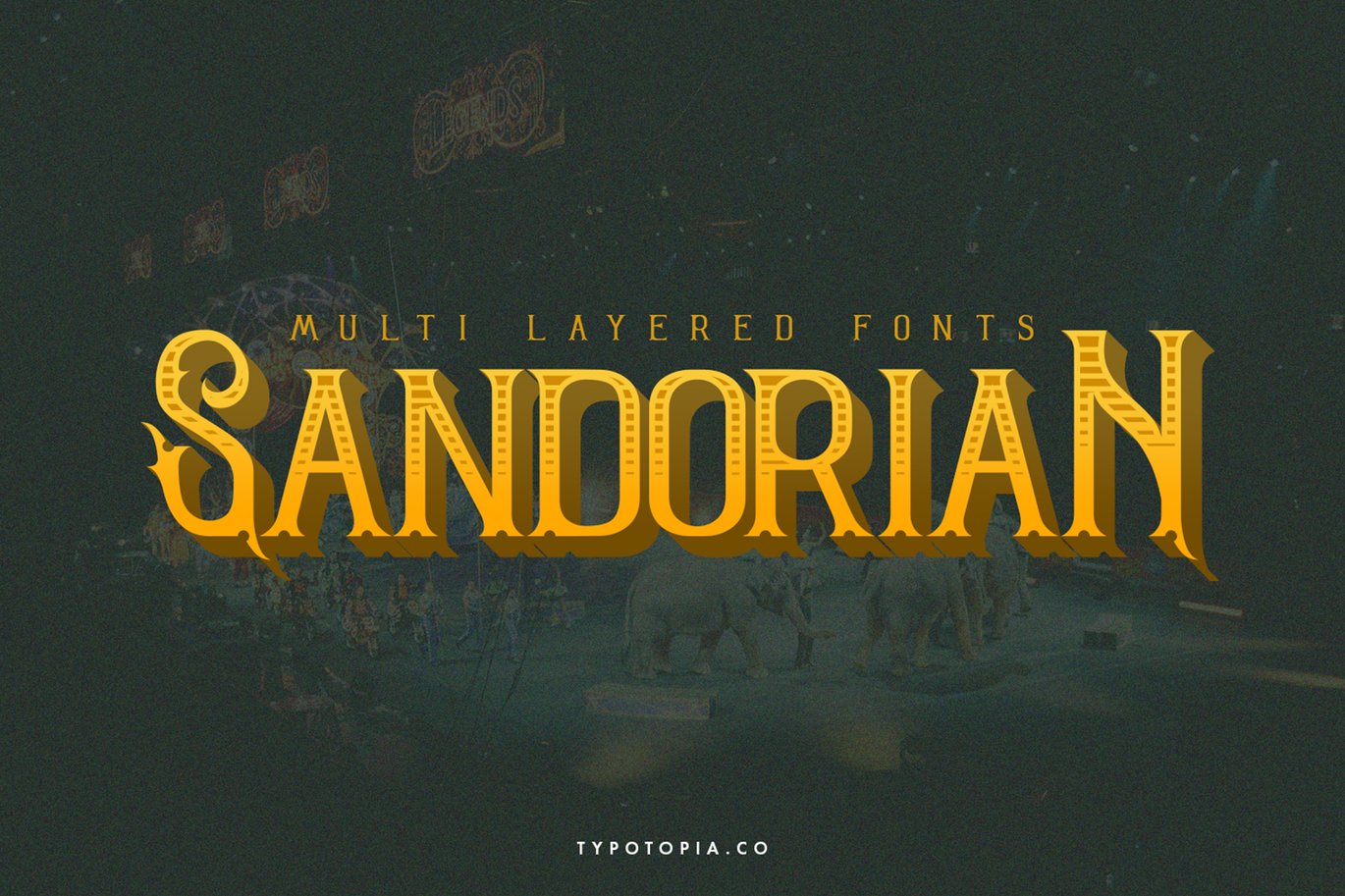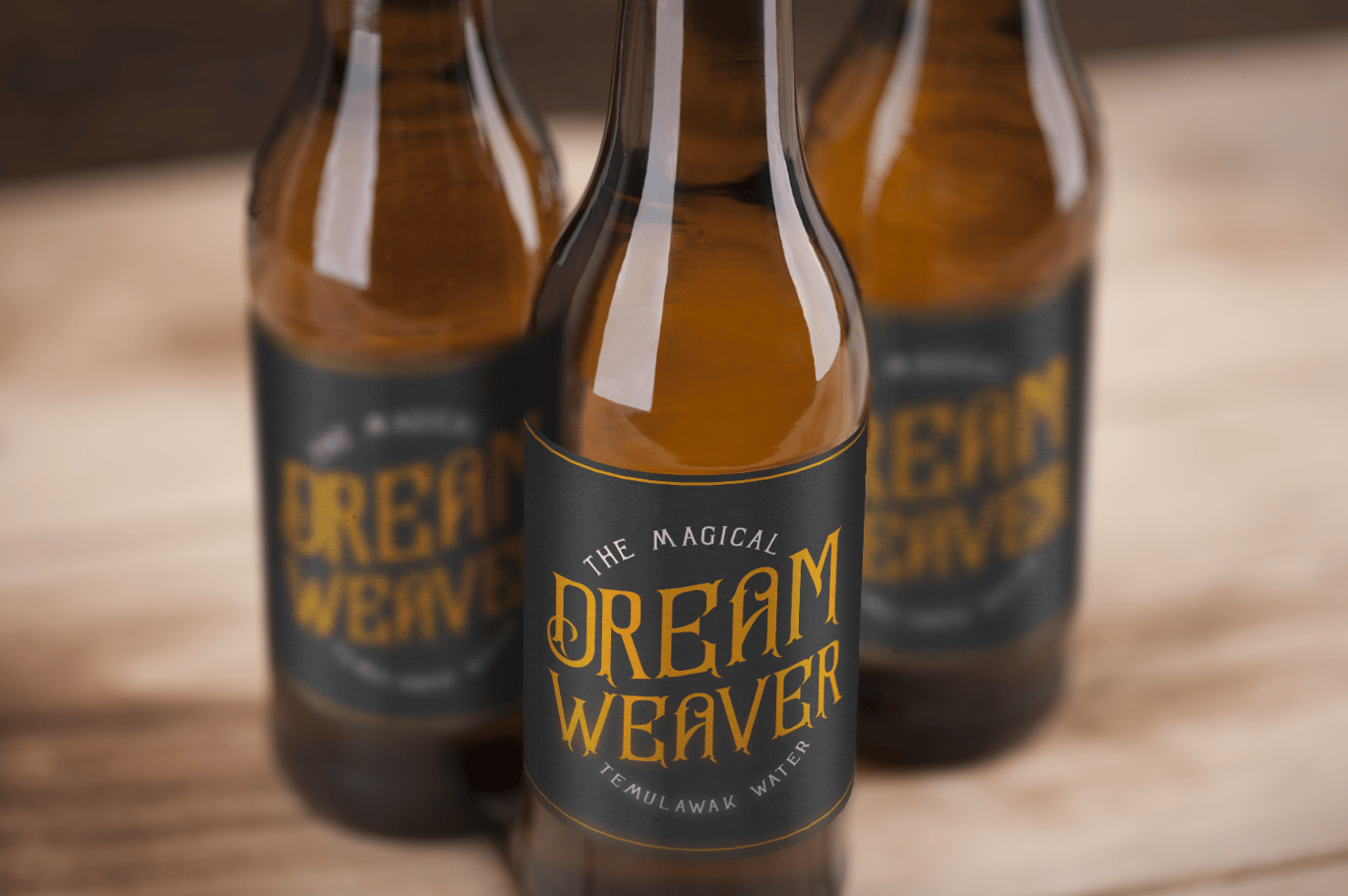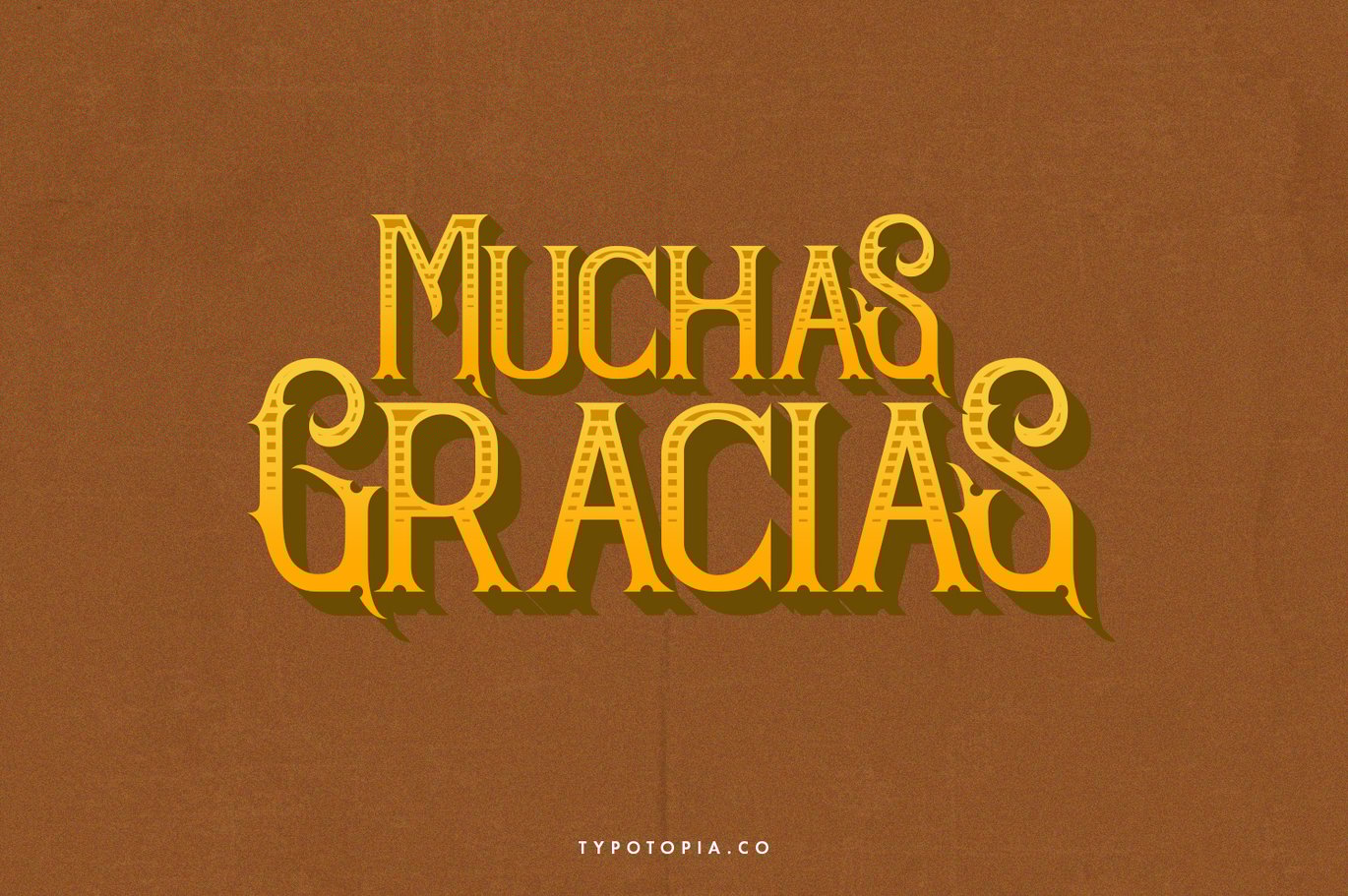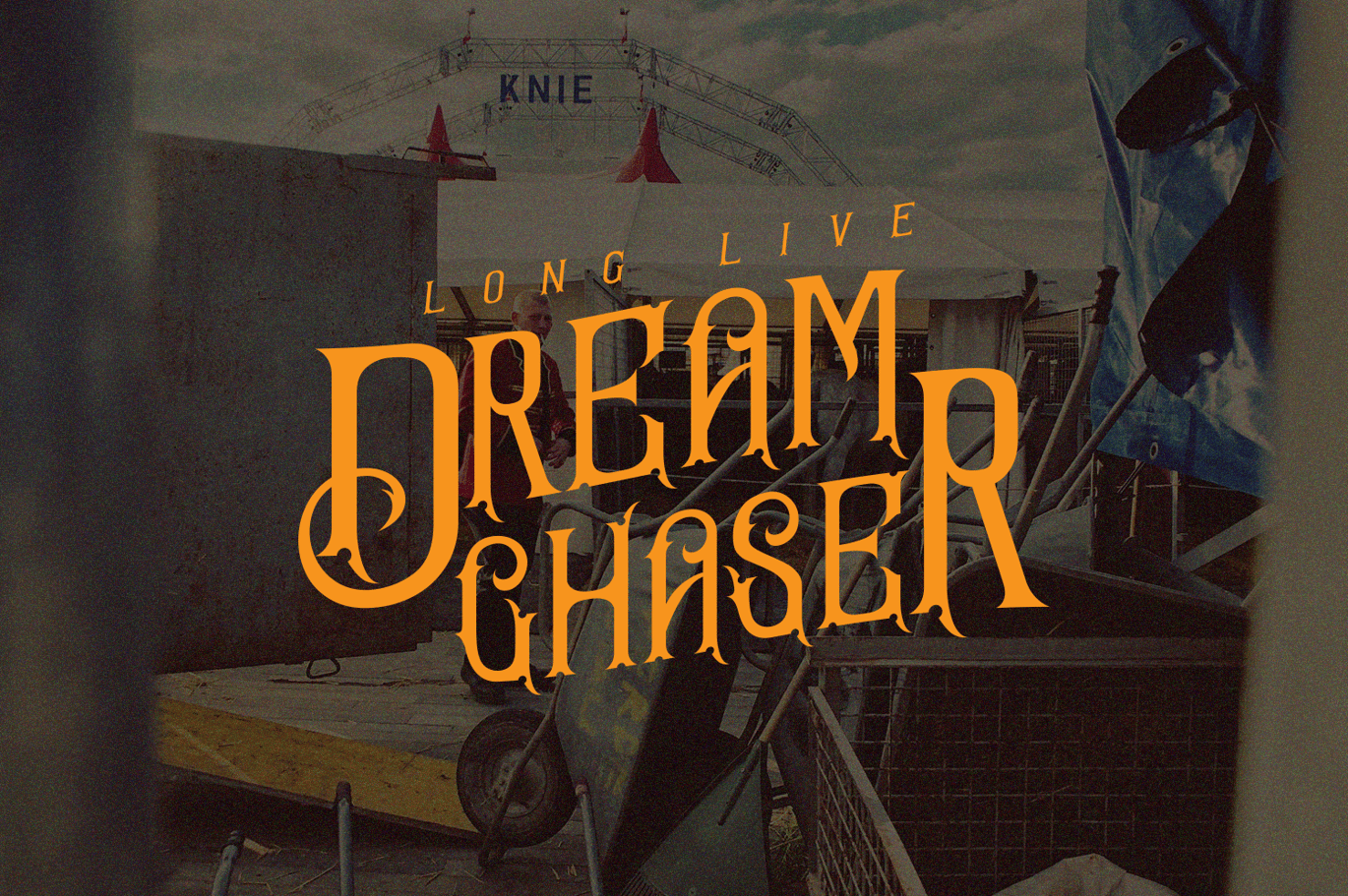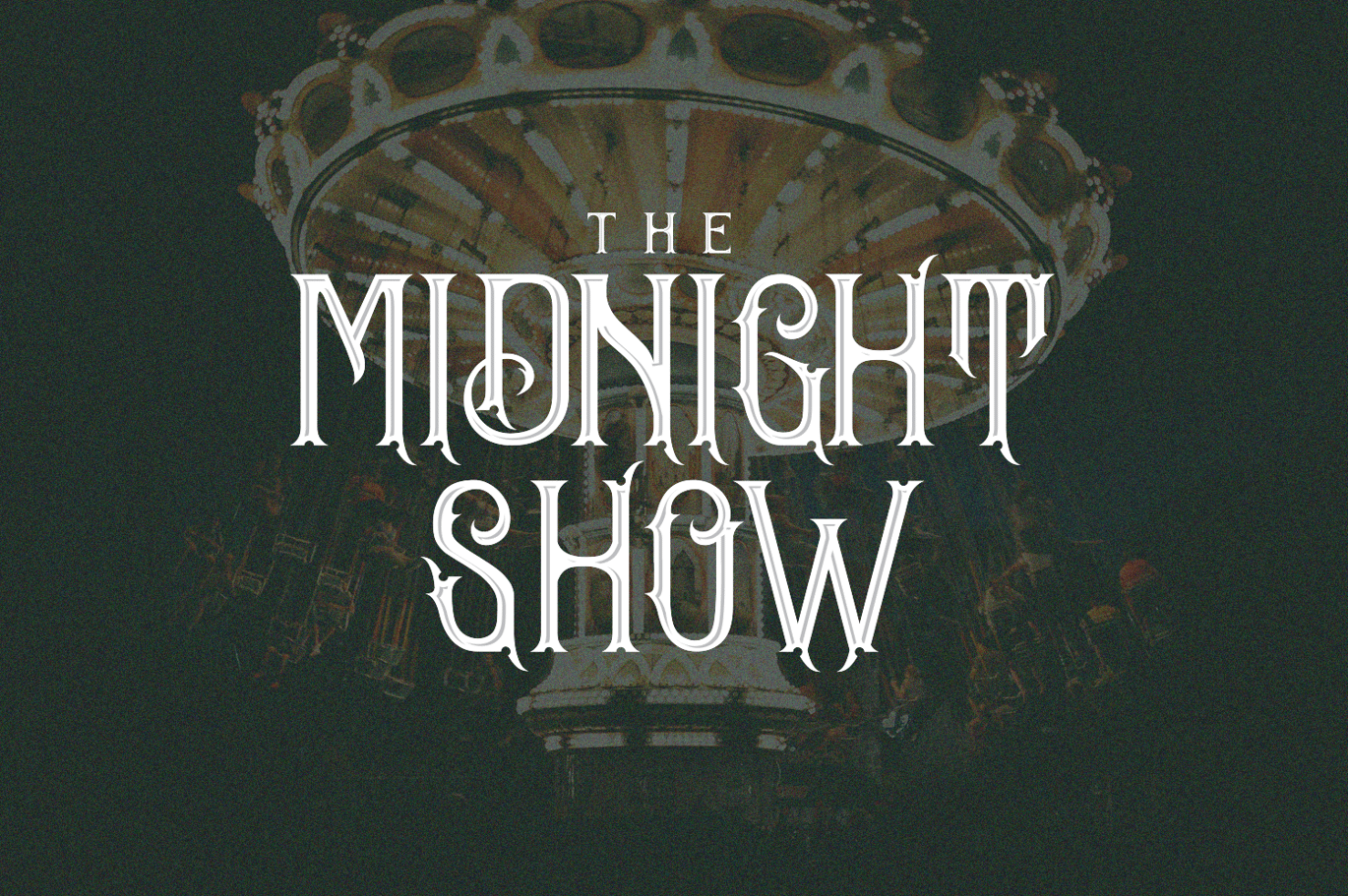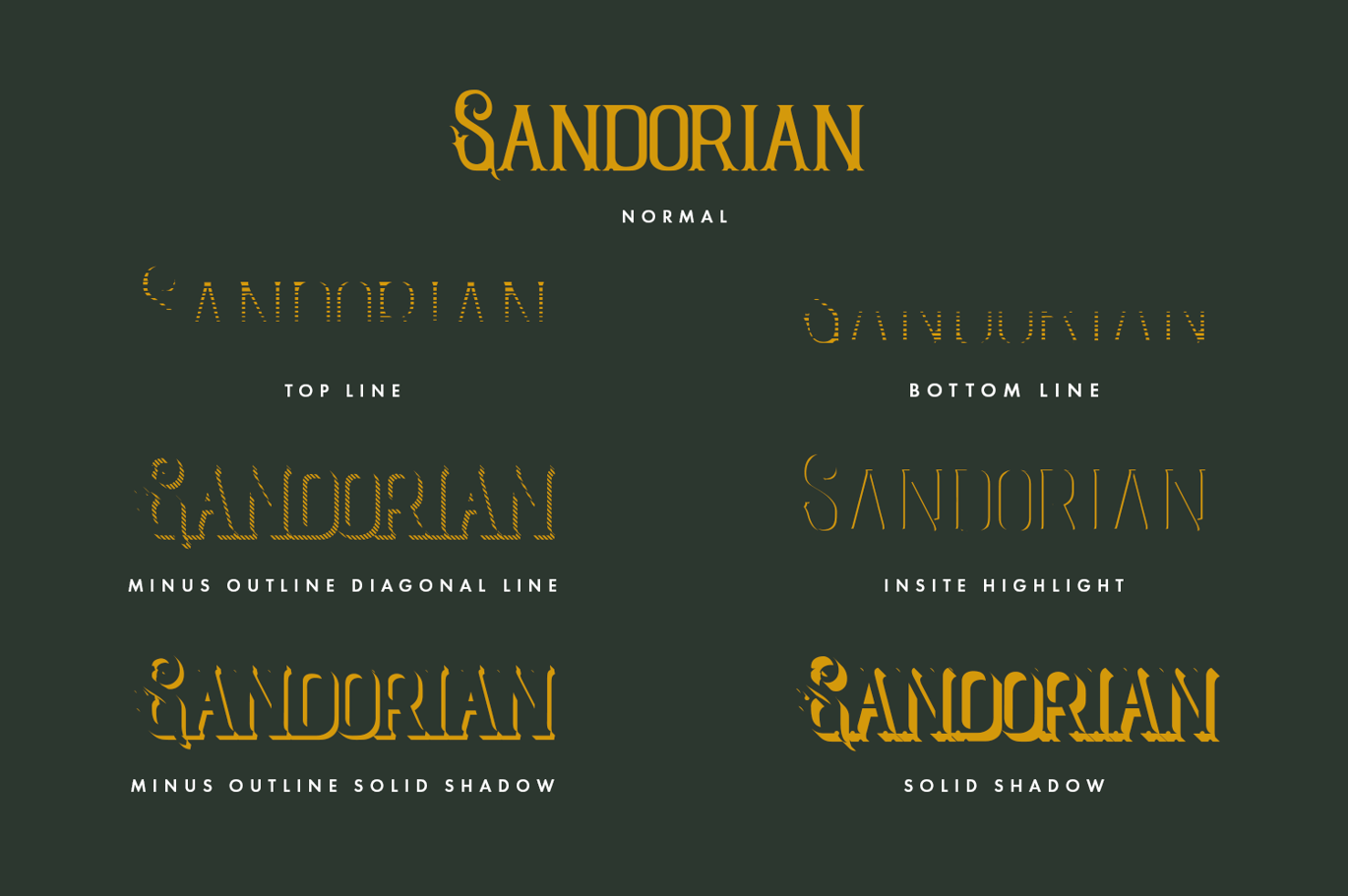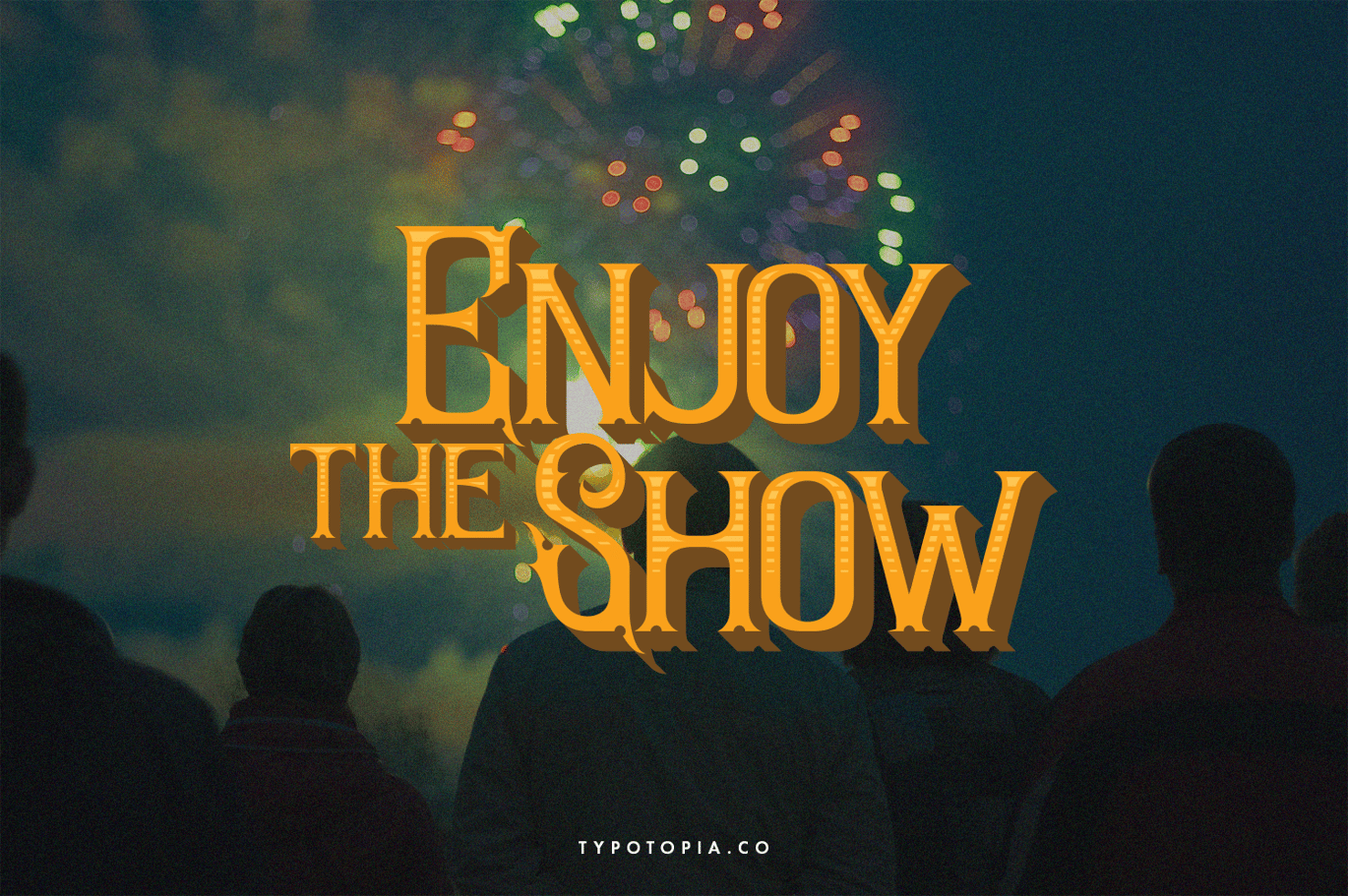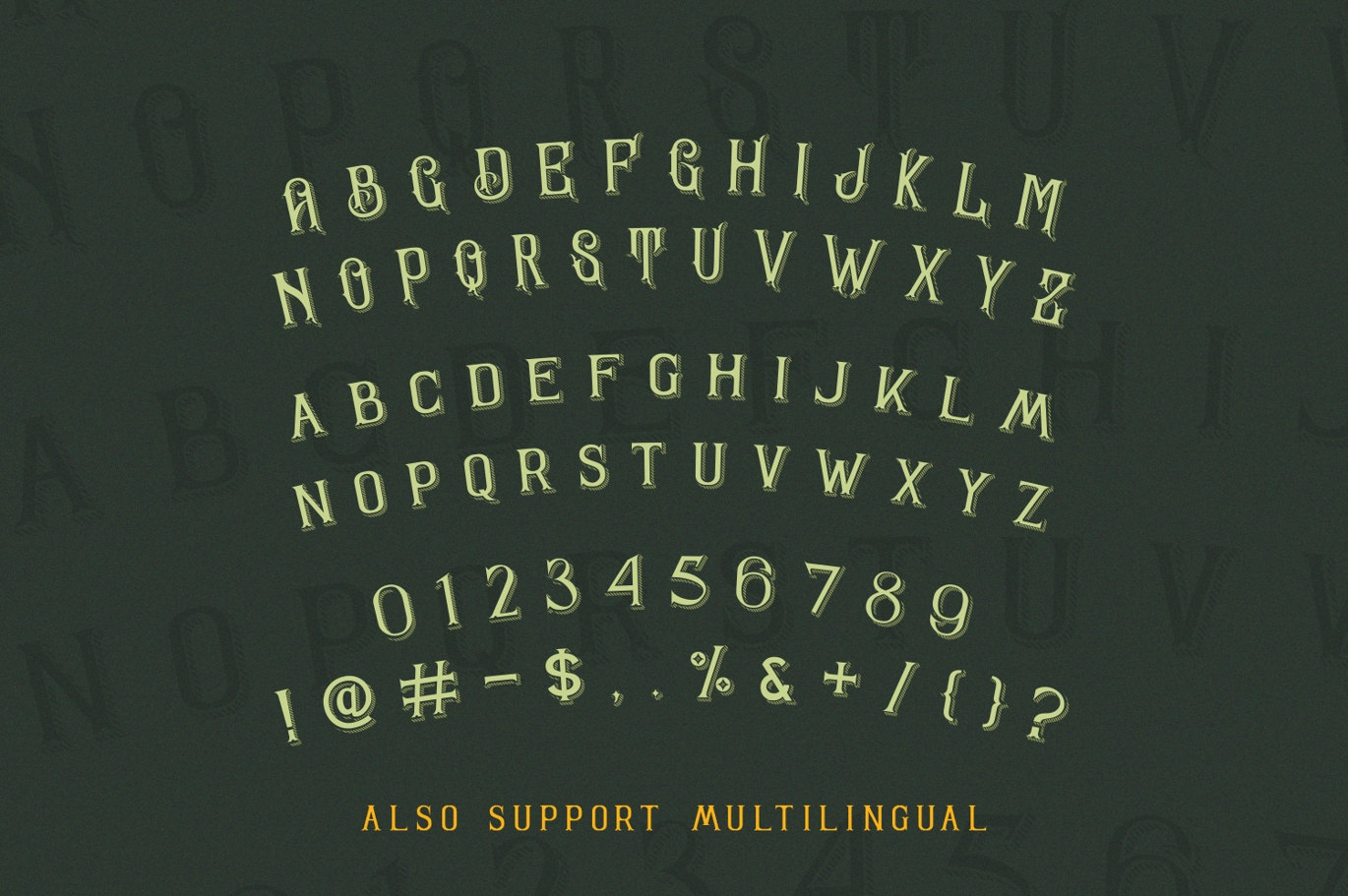
Sandorian Multi Layered Fonts
Introducing Sandorian – Multi Layered Font with Vintage Style. This Font has 6 Layer that can be Combined become an Unique Font, This perfect for the purposes of designing templates, brochures, videos, advertising branding, logos and more.
Fonts include multilingual support for; Afrikaans, Albanian, Catalan, Czech, Danish, Dutch, English, Estonian, Finnish, French, German, Hungarian, Italian, Latvian, Lithuanian, Norwegian, Polish, Portugese, Slovak, Slovenian, Spanisch, Swedish.